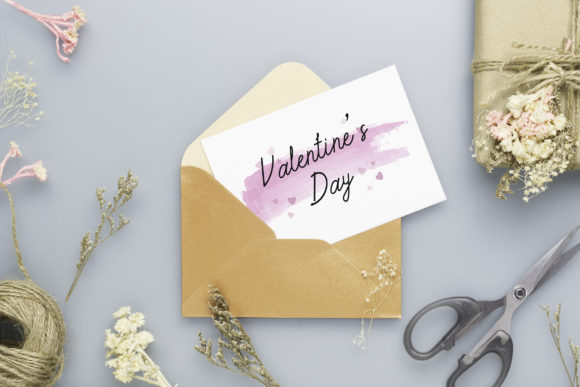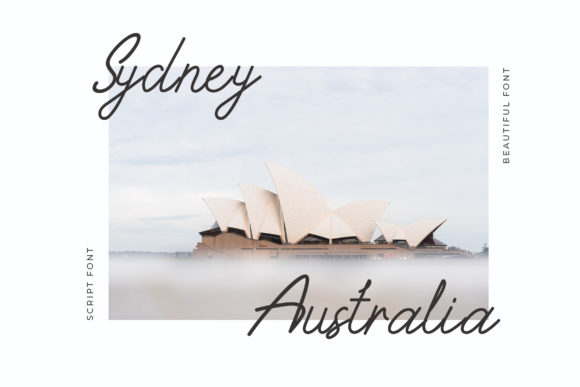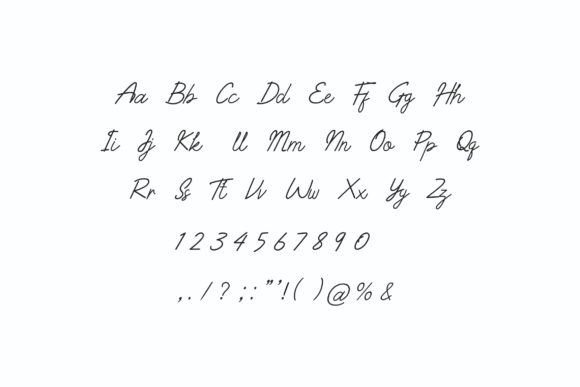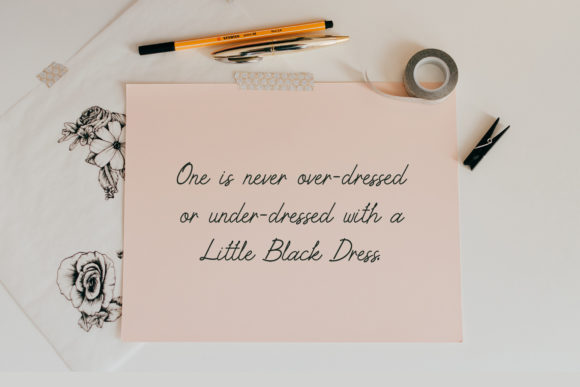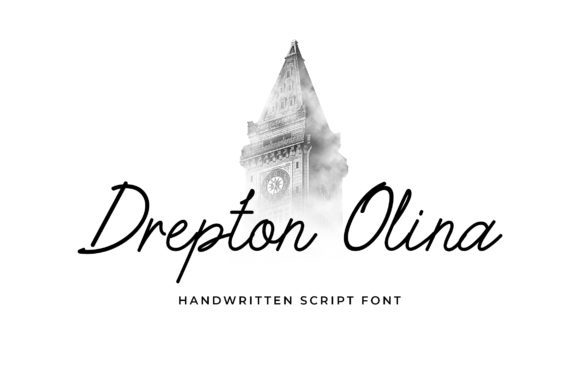
Drepton Olina Font: Elevate Your Designs with a Touch of Elegance
In the world of typography, fonts play a crucial role in bringing a design to life. Among the numerous fonts available, Drepton Olina stands out as a stunning handwritten font that can add a touch of elegance and sophistication to any project. In this article, we’ll dive into the features and benefits of Drepton Olina, and explore how it can help designers and crafters create beautiful works of art.
What is Drepton Olina Font?
Drepton Olina is a thin lettered and well-balanced handwritten font that exudes warmth, romance, and joy. Its delicate and refined strokes make it perfect for designs that require a touch of sophistication and elegance. Whether you’re working on a branding project, a wedding invitation, or a craft project, Drepton Olina is an excellent choice.
Key Features of Drepton Olina Font
• Thin Lettered: Drepton Olina’s thin letters create a sense of delicacy and refinement, making it ideal for designs that require a touch of elegance.
• Well-Balanced: The font’s well-balanced strokes ensure that each letter flows smoothly into the next, creating a harmonious and visually appealing effect.
• Handwritten: Drepton Olina’s handwritten style gives it a personal and organic feel, making it perfect for designs that require a touch of warmth and personality.
• Warm and Romantic: The font’s warm and romantic feel makes it ideal for designs that require a touch of sophistication and elegance.
Benefits of Using Drepton Olina Font
So, why choose Drepton Olina for your next design project? Here are just a few benefits of using this beautiful font:
• Endless Variations: Drepton Olina’s versatility allows you to experiment with endless variations, ensuring that your design stands out from the crowd.
• Elegant and Sophisticated: The font’s elegant and sophisticated feel makes it perfect for designs that require a touch of refinement and luxury.
• Easy to Read: Drepton Olina’s clear and legible strokes ensure that your text is easy to read, making it perfect for designs that require a high level of readability.
• Perfect for Crafters: The font’s handmade feel makes it perfect for crafters who want to add a personal touch to their projects.
How to Use Drepton Olina Font in Your Designs
Using Drepton Olina in your designs is easy. Here are a few tips to get you started:
• Pair it with Other Fonts: Experiment with pairing Drepton Olina with other fonts to create a unique and visually appealing effect.
• Use it for Headings and Titles: The font’s elegant and sophisticated feel makes it perfect for headings and titles.
• Add it to Your Branding: Use Drepton Olina to add a touch of elegance and sophistication to your branding materials.
• Experiment with Colors: Try experimenting with different colors to add depth and visual interest to your design.
In conclusion, Drepton Olina is a beautiful handwritten font that can add a touch of elegance and sophistication to any design project. Its thin lettered and well-balanced strokes make it perfect for designs that require a touch of refinement and luxury. With its endless variations, elegant feel, and ease of use, Drepton Olina is an excellent choice for designers and crafters alike. So why not give it a try and see how it can elevate your designs to the next level?